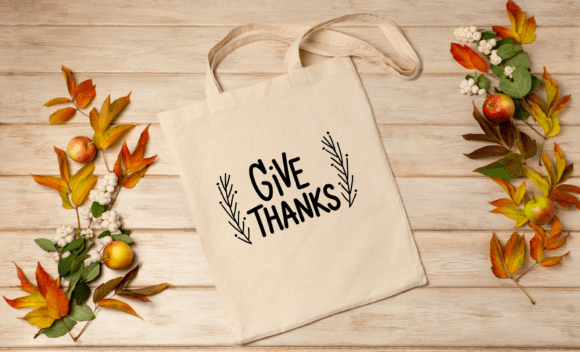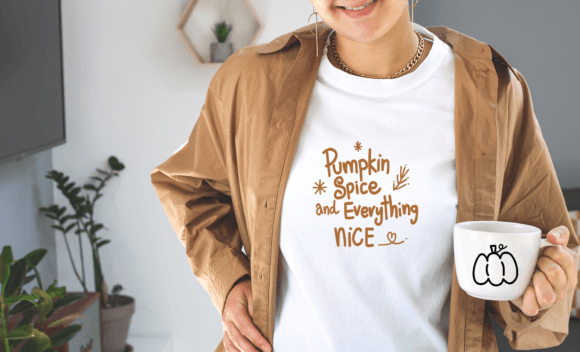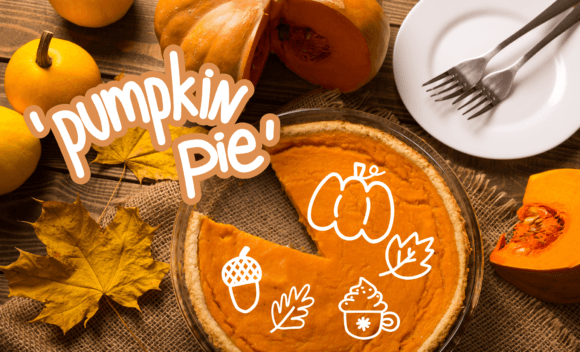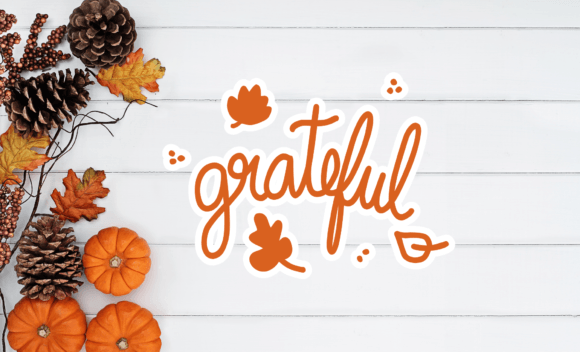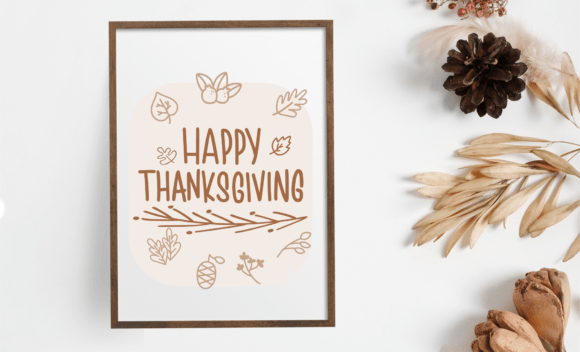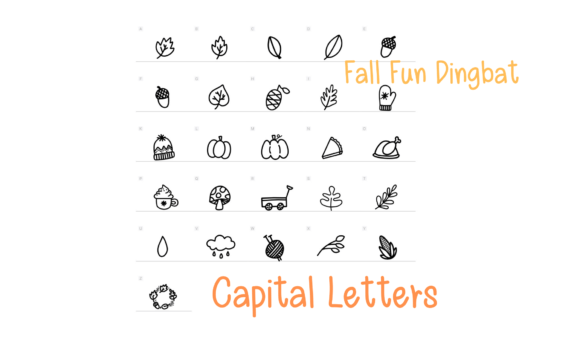
Introducing Fall Fun Font: The Perfect Addition to Your Digital Creations
Are you a designer or crafter looking for a font that captures the essence of fall? Look no further than Fall Fun Font, a delightful doodle font/dingbats that’s sure to add a touch of whimsy to your digital prints, social media posts, planners, journals, and presentations. In this article, we’ll dive into the world of Fall Fun Font and explore its features, benefits, and uses.
What is Fall Fun Font?
Fall Fun Font is a unique and playful font that’s perfect for anyone who loves the fall season. This doodle font/dingbats is designed to bring a smile to your face with its cute and quirky characters. From leaves and acorns to pumpkins and turkeys, Fall Fun Font is packed with fun and festive symbols that will add a personal touch to your digital creations.
Features of Fall Fun Font
- Cute and Playful Design: Fall Fun Font is designed to be fun and playful, making it perfect for digital prints, social media posts, and other creative projects.
- Doodle Font/Dingbats: This font features a unique doodle style that’s perfect for adding a personal touch to your designs.
- Versatile: Fall Fun Font can be used for a wide range of projects, including digital prints, planners, journals, and presentations.
Benefits of Using Fall Fun Font
So, why should you choose Fall Fun Font for your digital creations? Here are just a few benefits of using this amazing font:
- Adds a Personal Touch: Fall Fun Font adds a personal touch to your digital creations, making them stand out from the crowd.
- Increases Engagement: The playful design of Fall Fun Font is sure to grab the attention of your audience and increase engagement.
- Perfect for Fall-Themed Projects: This font is perfect for fall-themed projects, including Halloween and Thanksgiving designs.
- Compatible with a Range of Platforms: Fall Fun Font can be used on a range of platforms, including Facebook, Instagram, and more.
Uses for Fall Fun Font
So, what can you use Fall Fun Font for? The possibilities are endless! Here are a few ideas to get you started:
- Digital Prints: Use Fall Fun Font to create fun and festive digital prints, including posters, flyers, and more.
- Social Media Posts: Add a personal touch to your social media posts with Fall Fun Font, perfect for Facebook, Instagram, and more.
- Planners and Journals: Use Fall Fun Font to create custom planners and journals that are both fun and functional.
- Presentations: Add a touch of whimsy to your presentations with Fall Fun Font, perfect for business or personal use.
Tips for Using Fall Fun Font
Here are a few tips for getting the most out of Fall Fun Font:
- Experiment with Different Colors: Fall Fun Font looks great in a range of colors, so don’t be afraid to experiment and find the perfect hue for your project.
- Mix and Match Characters: This font features a range of characters, so try mixing and matching them to create a unique look.
- Use it with Other Fonts: Fall Fun Font pairs well with a range of other fonts, so try using it with your favorite font to create a stunning combination.
| Font Name | Fall Fun Font |
| Author | LalavaStudio |
Fall Fun Font is a unique and playful font that’s perfect for designers and crafters who love the fall season. With its cute and quirky characters, this font is sure to add a touch of whimsy to your digital creations. Whether you’re creating digital prints, social media posts, planners, journals, or presentations, Fall Fun Font is the perfect addition to your design toolkit. So why wait? Download Fall Fun Font today and start creating your own fun and festive designs!